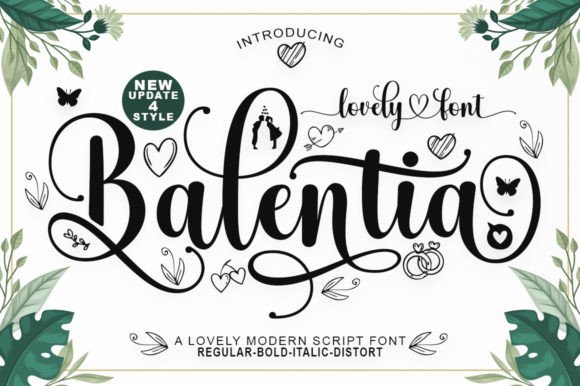
Introducing Balentia Font: A Romantic and Sweet Modern Calligraphy Typeface
Are you looking for a font that can add a touch of elegance and sophistication to your designs? Look no further than Balentia Font, a romantic and sweet modern calligraphy typeface that is sure to impress. With its unique characters that dance along the baseline, Balentia Font is perfect for a variety of design projects, from wedding invitations and branding materials to social media graphics and more.
Key Features of Balentia Font
- Romantic and Sweet Design: Balentia Font is a modern calligraphy typeface that exudes romance and sweetness. Its unique characters are designed to dance along the baseline, creating a sense of movement and fluidity.
- Modern Calligraphy Style: Balentia Font is a modern calligraphy typeface that is perfect for designers who want to add a touch of elegance and sophistication to their designs.
Design Applications for Balentia Font
Balentia Font is a versatile typeface that can be used in a variety of design applications, including:
- Wedding Invitations: Balentia Font is perfect for wedding invitations, as it adds a touch of romance and elegance to the design.
- Branding Materials: Balentia Font can be used in branding materials, such as logos, business cards, and letterheads, to add a touch of sophistication and elegance.
- Social Media Graphics: Balentia Font can be used in social media graphics, such as Facebook posts, Instagram stories, and Twitter headers, to add a touch of personality and style.
- Packaging Design: Balentia Font can be used in packaging design to add a touch of elegance and sophistication to product labels and packaging materials.
Typography Tips for Using Balentia Font
Here are some typography tips for using Balentia Font:
- Use a Clear Background: Balentia Font is a script typeface, and as such, it can be difficult to read on a busy or dark background. Use a clear background to ensure that the text is legible.
- Adjust the Font Size: Balentia Font can be used at a variety of font sizes, but it’s best to use it at a larger size to ensure that the details of the font are visible.
- Experiment with Ligatures: Balentia Font has a range of ligatures that can be used to add a touch of elegance and sophistication to the text. Experiment with different ligatures to find the one that works best for your design.
Glyphs and Ligatures in Balentia Font
Balentia Font has a range of glyphs and ligatures that can be used to add a touch of elegance and sophistication to the text. Some of the glyphs and ligatures included in Balentia Font include:
- Ligatures: Balentia Font has a range of ligatures, including fi, fl, and ffi, that can be used to add a touch of elegance and sophistication to the text.
- Swashes: Balentia Font has a range of swashes that can be used to add a touch of drama and flair to the text.
- Alternates: Balentia Font has a range of alternate characters that can be used to add a touch of variation and interest to the text.
Benefits of Using Balentia Font
There are many benefits to using Balentia Font in your designs, including:
- Elegance and Sophistication: Balentia Font adds a touch of elegance and sophistication to any design.
- Romance and Whimsy: Balentia Font has a romantic and whimsical feel that is perfect for designs that require a touch of personality and style.
- Versatility: Balentia Font can be used in a variety of design applications, from wedding invitations to branding materials.
In conclusion, Balentia Font is a romantic and sweet modern calligraphy typeface that is perfect for designers who want to add a touch of elegance and sophistication to their designs. With its unique characters that dance along the baseline, Balentia Font is sure to impress. Whether you’re designing a wedding invitation, branding materials, or social media graphics, Balentia Font is a versatile typeface that can help you achieve your design goals.